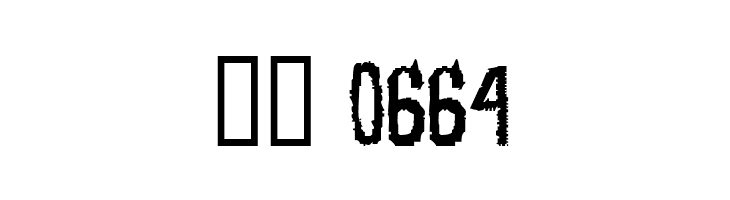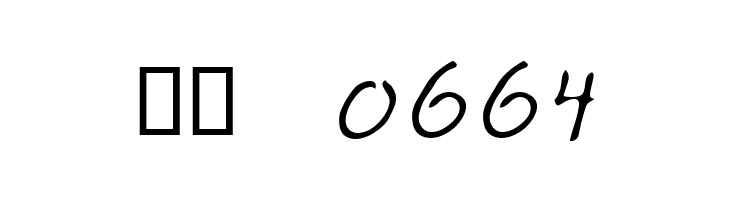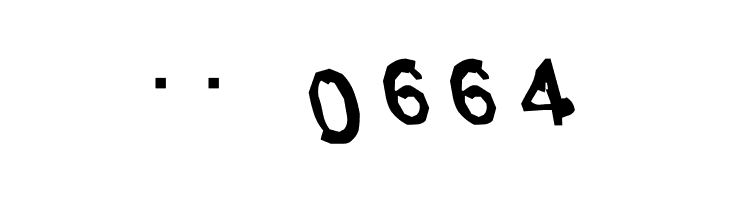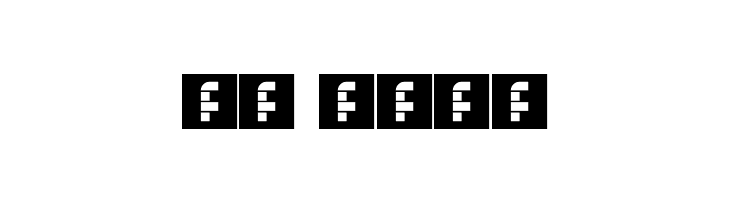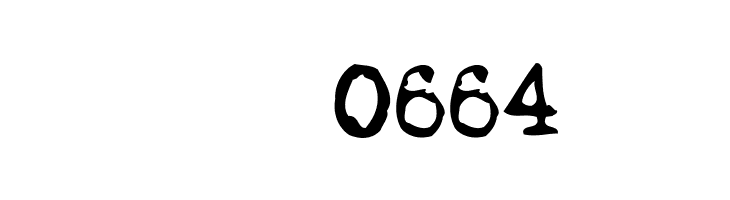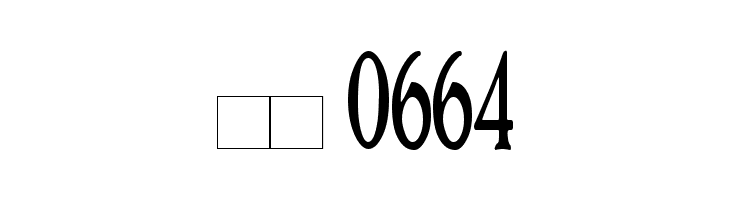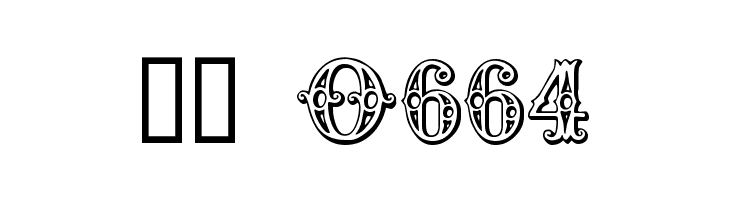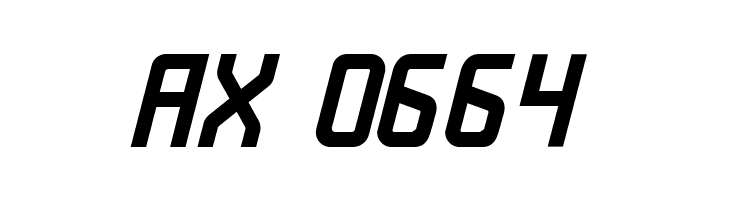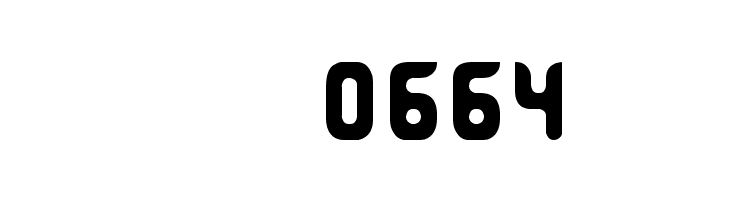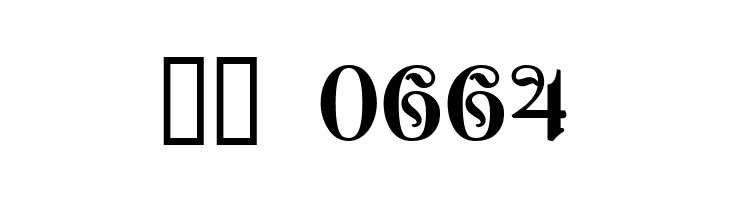
A distressed, textured font with a vintage, handmade feel.
A decorative and ornate font with uppercase letters in intricate square frames, exuding vintage elegance.
A bold, distressed font with a rugged, textured appearance.
A playful font designed to resemble interconnected puzzle pieces.
A bold, uppercase font styled like board game tiles with numbers.
A bold, decorative font with a mosaic-like pattern, ideal for striking visual designs.
A vintage, typewriter-style font with a distressed, textured look.
An elongated, elegant font with tall, narrow letterforms and subtle curves.
An ornate and decorative font with intricate detailing and bold outlines.
A bold, geometric font with characters enclosed in circles, offering a modern and industrial look.
A dynamic, condensed italic font with bold strokes and a modern, sleek style.
A bold, italic, and modern font with a dynamic slant and clean lines.
A bold, italicized font with outlined characters and a dynamic, impactful style.
A bold, 3D font with a playful and modern aesthetic, featuring outlined characters with a shadow effect.
A gothic, medieval-inspired font with sharp, angular strokes and intricate details.
A decorative blackletter font with ornate, medieval-inspired designs.
A dynamic, italicized font with sharp, angular strokes and high contrast.
An elegant script font with intricate swirls and flourishes.
A playful, child-like handwritten font with irregular strokes and spacing.